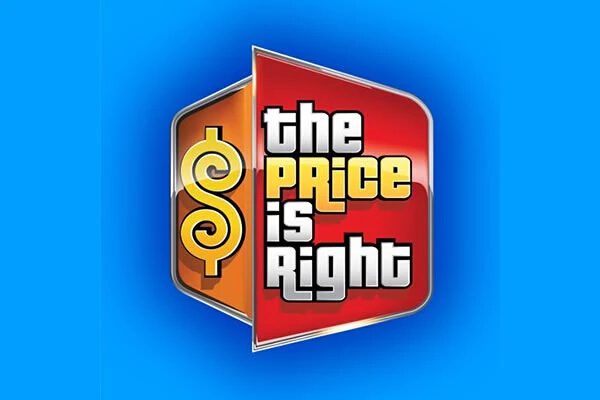
The name of The Price Is Right font that most looks like the letting used for the logo of this popular tv game show, is a typeface by the name of Pricedown. It was created by the design team over at Typodermic Fonts.
Just like the original logo, it's presented as a Sans-Serif typeface. It contains all of the same flourishes that you see in the original logo. Of special note is the "R" and "G" characters which both contain the distinctive elongated strokes, which are an exact match of the styling for the official The Price Is Right font.